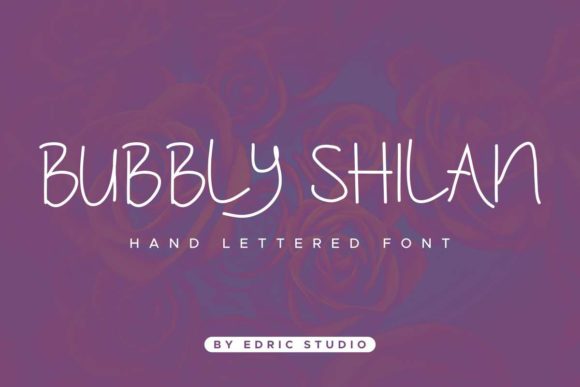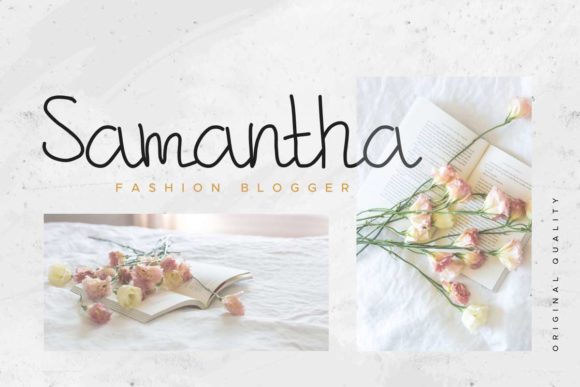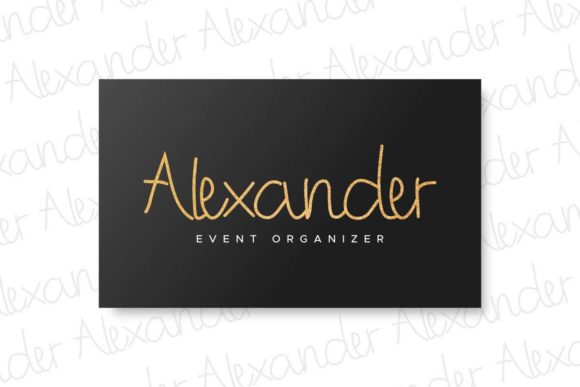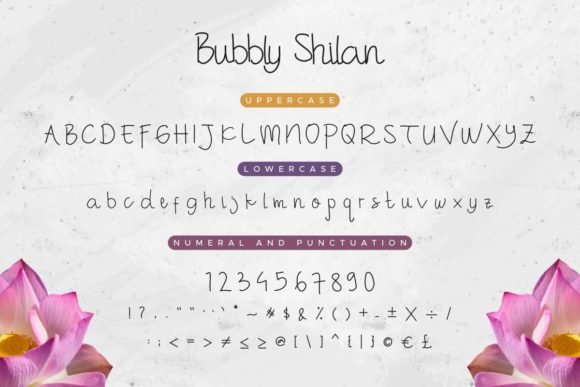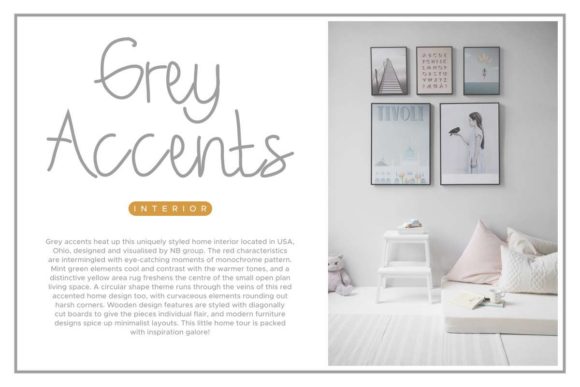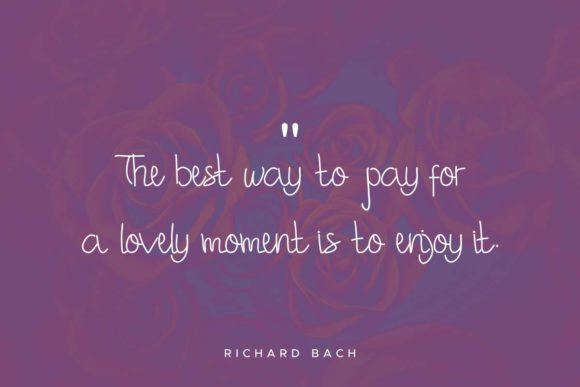
Bubbly Shilan Font: The Ultimate Cute and Casual Handwritten Font for Designers and Crafters
Are you tired of using the same old fonts for your design projects? Look no further! Bubbly Shilan Font is here to revolutionize the way you create. This adorable handwritten font is perfect for designers and crafters who want to add a touch of personality to their work. With its incredibly friendly feel, Bubbly Shilan is sure to make your projects stand out from the crowd.
What Makes Bubbly Shilan Font So Special?
Bubbly Shilan Font is a beautiful, casual handwritten font that features gorgeous swashes and ligatures. These elegant flourishes make this script incredibly versatile, allowing you to use it for a wide range of projects. Whether you’re creating social media graphics, calligraphy, or craft projects, Bubbly Shilan is the perfect choice.
Perfect for Instagram and Social Media Graphics
In today’s digital age, having eye-catching social media graphics is crucial for businesses and individuals alike. Bubbly Shilan Font is specifically designed to make your Instagram posts, stories, and other social media graphics pop. Its friendly and approachable feel makes it perfect for creating engaging content that resonates with your audience.
With Bubbly Shilan, you can add a personal touch to your social media graphics, making them more relatable and shareable. Whether you’re a blogger, influencer, or small business owner, this font is sure to help you build a strong brand identity.
Calligraphy and Handwritten Projects
Bubbly Shilan Font is also perfect for calligraphy and handwritten projects. Its elegant swashes and ligatures make it ideal for creating beautiful, hand-written pieces that look like they were created with love and care.
Whether you’re creating custom wedding invitations, party decorations, or gift tags, Bubbly Shilan is the perfect choice. This font is sure to add a touch of whimsy and personality to your projects, making them truly special.
So, what makes Bubbly Shilan Font so special? Here are just a few of its key features and benefits:
- Cute and casual design: Bubbly Shilan has a friendly and approachable feel that’s perfect for creating engaging content.
- Gorgeous swashes and ligatures: These elegant flourishes make this script incredibly versatile and perfect for calligraphy and handwritten projects.
- Incredibly versatile: Bubbly Shilan can be used for a wide range of projects, from social media graphics to calligraphy and handmade crafts.
Bubbly Shilan Font is a beautiful, cute, and casual handwritten font that’s perfect for designers and crafters. With its incredibly friendly feel and gorgeous swashes and ligatures, this font is sure to make your projects stand out from the crowd.